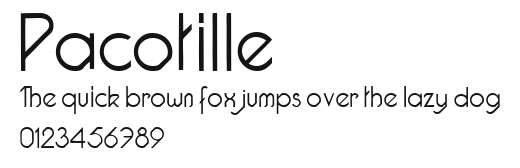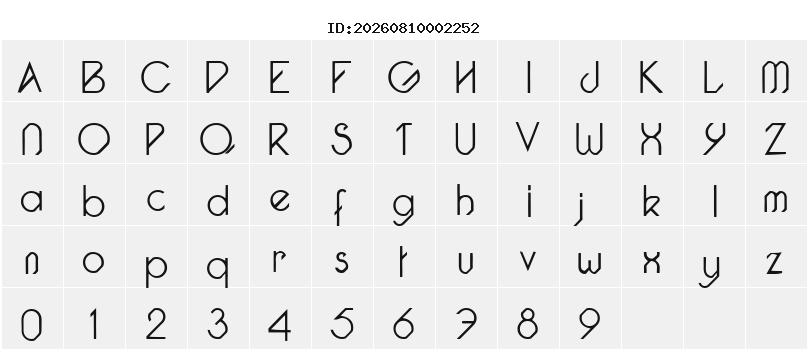
Pacotille.ttf is a modern, elegant sans-serif font designed for ultimate readability and visual harmony. Perfect for branding, headlines, web design, and print materials.